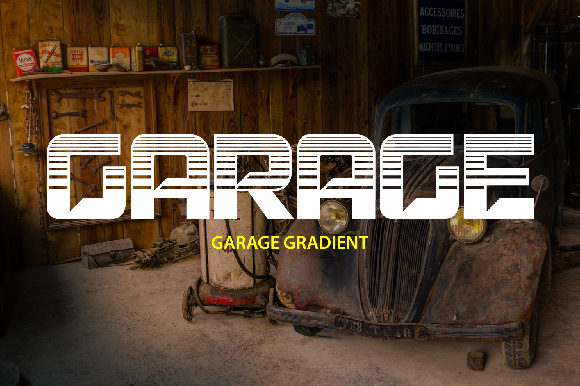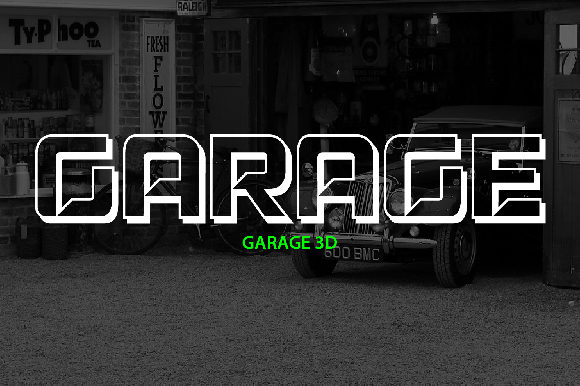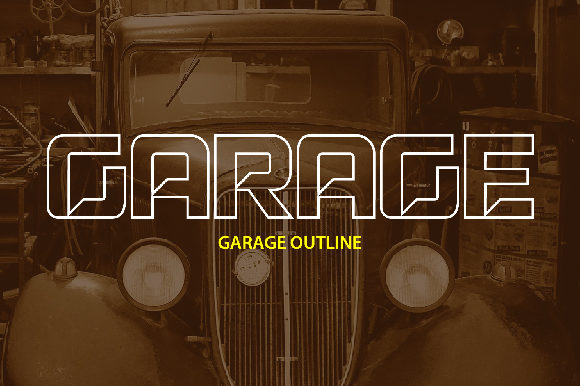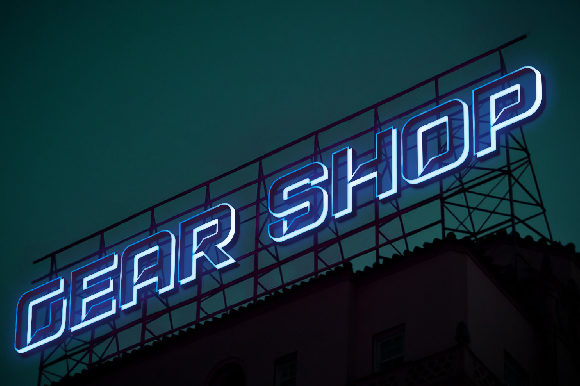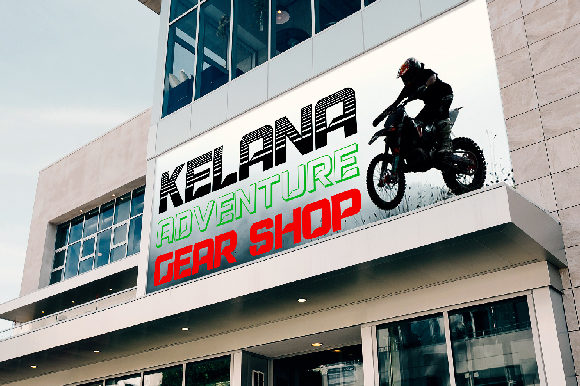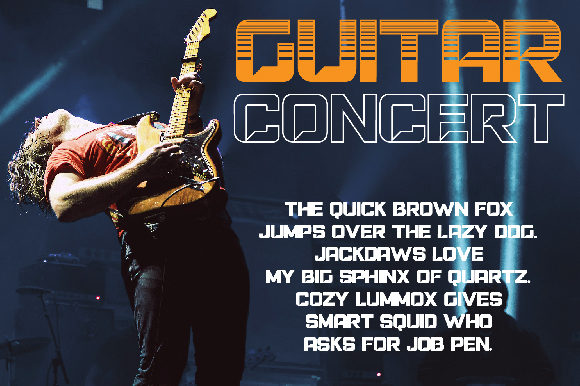
Introducing Garage Font: A Refreshing and Bold Display Font with a Retro Twist
Are you tired of using the same old fonts in your designs? Look no further than Garage Font, a refreshing and bold display font that’s sure to add a unique touch to your projects. With its retro aesthetic and eye-catching style, Garage Font is perfect for designers and crafters looking to make a statement.
What is Garage Font?
Garage Font is a display font designed to make a bold impression. Its unique feel and retro vibe make it perfect for a variety of design projects, from posters and flyers to logos and branding materials. The font features clean lines, bold shapes, and a distinctive style that’s sure to turn heads.
The Inspiration Behind Garage Font
The inspiration behind Garage Font comes from the classic designs of the past, with a modern twist. The font’s creators drew inspiration from vintage signs, posters, and logos, and brought them into the modern era with a fresh and bold approach. The result is a font that’s both nostalgic and cutting-edge.
Key Features of Garage Font
So what sets Garage Font apart from other display fonts on the market? Here are just a few of its key features:
- Unique feel: Garage Font has a distinctive style that’s unlike any other font on the market.
- Retro aesthetic: The font’s retro vibe is perfect for designers looking to add a touch of nostalgia to their projects.
- Bold and eye-catching: Garage Font is designed to make a statement, with bold shapes and clean lines that are sure to grab attention.
- Versatile: The font is perfect for a variety of design projects, from posters and flyers to logos and branding materials.
How to Use Garage Font in Your Designs
So how can you use Garage Font in your designs? Here are a few ideas to get you started:
- Posters and flyers: Use Garage Font as a headline font to grab attention and add a touch of retro flair to your posters and flyers.
- Logos and branding: Create a bold and eye-catching logo with Garage Font, perfect for businesses looking to make a statement.
- Signs and banners: Use Garage Font to create eye-catching signs and banners that are sure to turn heads.
- Social media graphics: Add a touch of personality to your social media graphics with Garage Font, perfect for creating engaging and shareable content.
Tips for Pairing Garage Font with Other Fonts
When pairing Garage Font with other fonts, here are a few tips to keep in mind:
- Contrast with a serif font: Pair Garage Font with a serif font for a bold and eye-catching contrast.
- Match with a script font: Pair Garage Font with a script font for a fun and playful look.
- Use a sans-serif font: Pair Garage Font with a sans-serif font for a clean and modern look.
Garage Font is a refreshing and bold display font that’s sure to add a unique touch to your designs. With its retro aesthetic and eye-catching style, it’s perfect for designers and crafters looking to make a statement. Whether you’re creating posters, logos, or social media graphics, Garage Font is a versatile and stylish choice that’s sure to inspire.